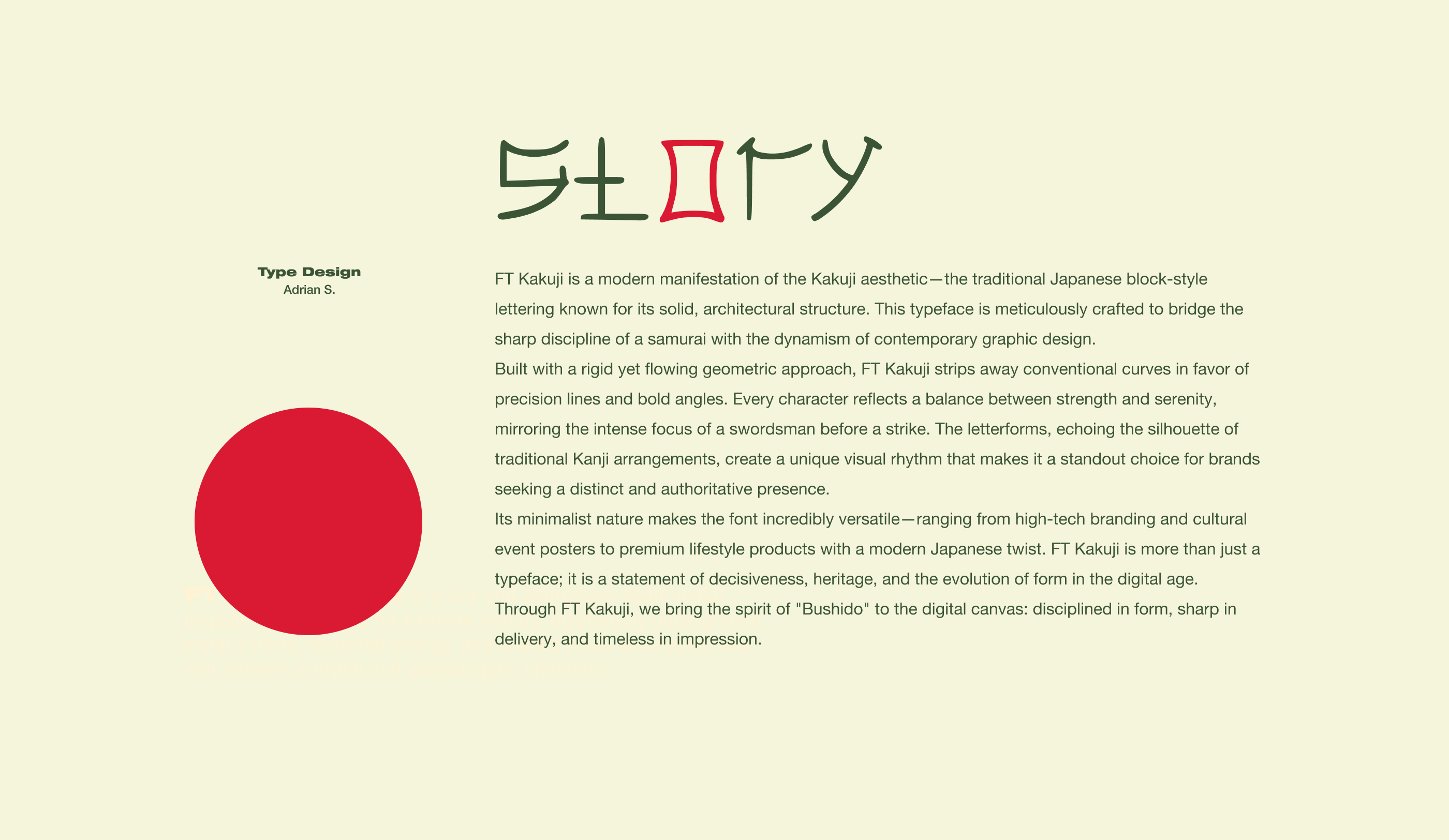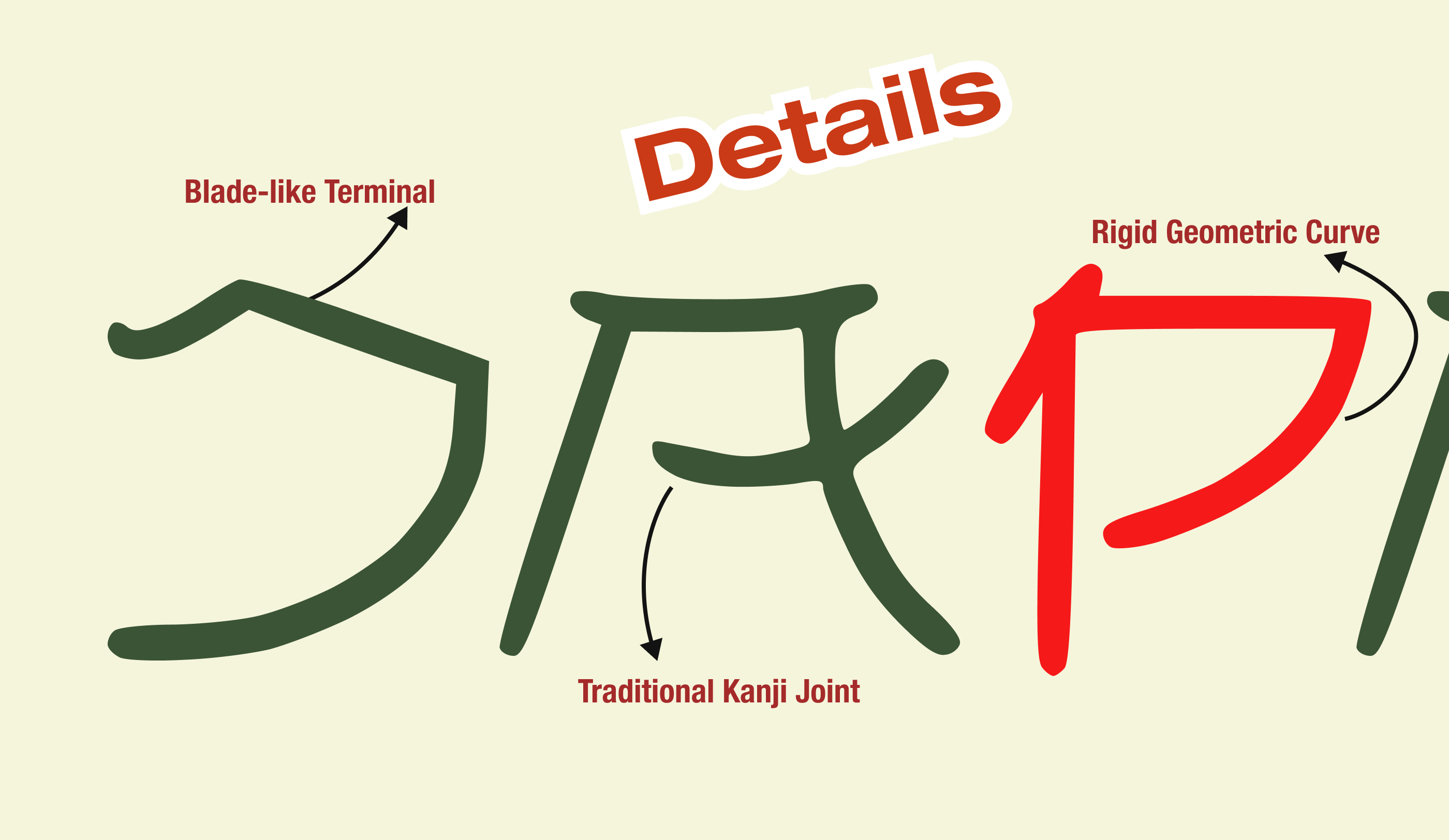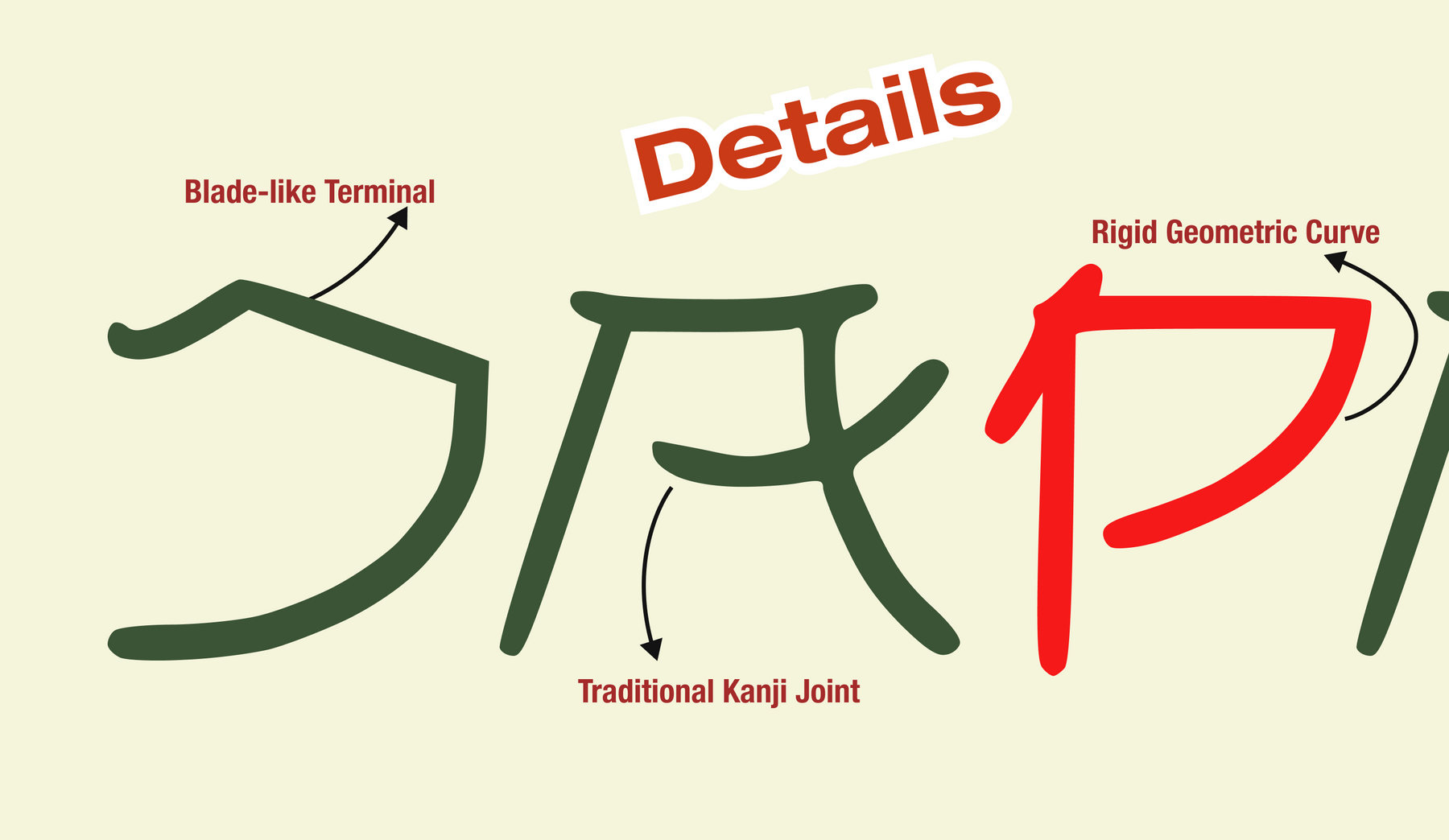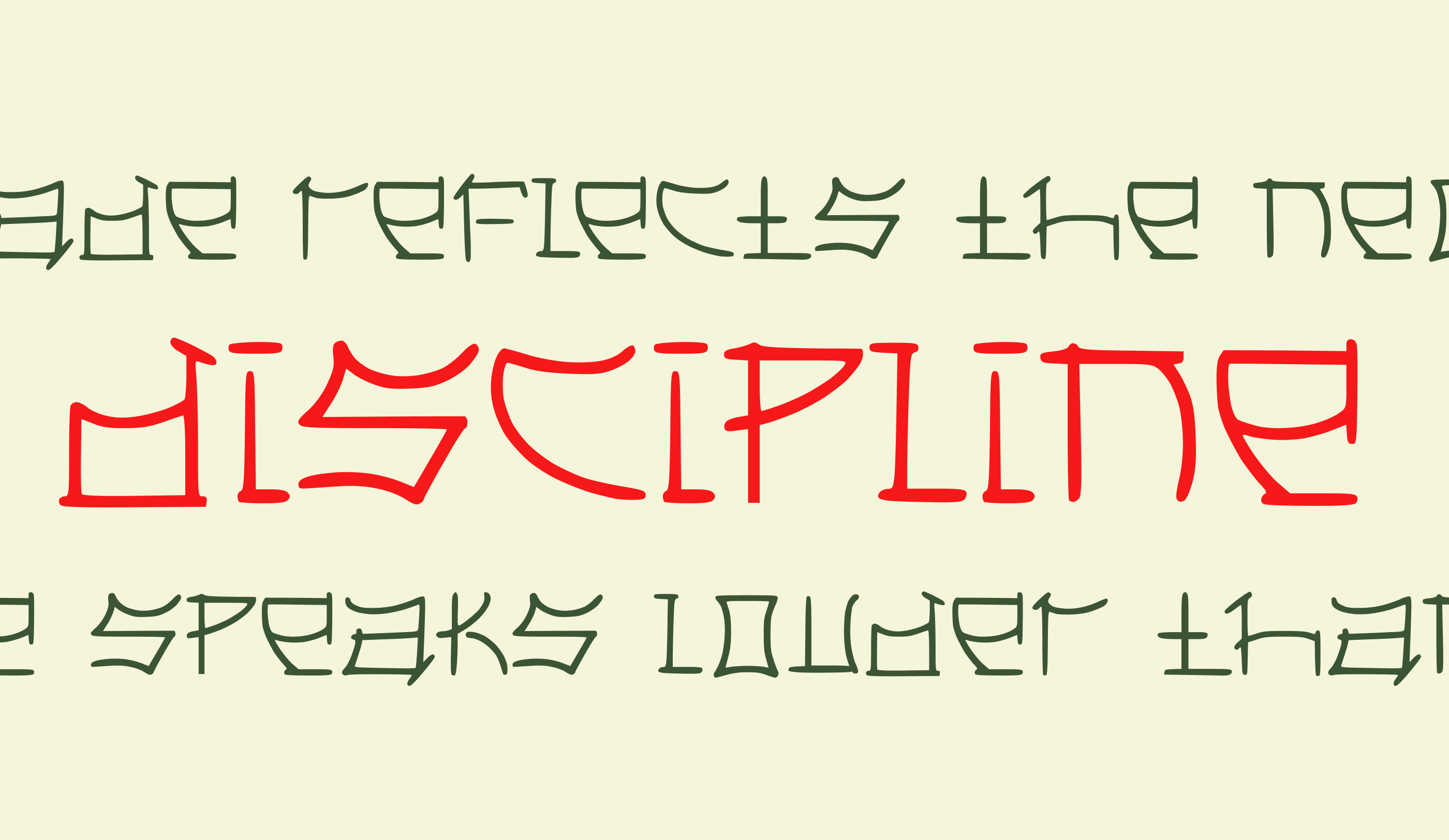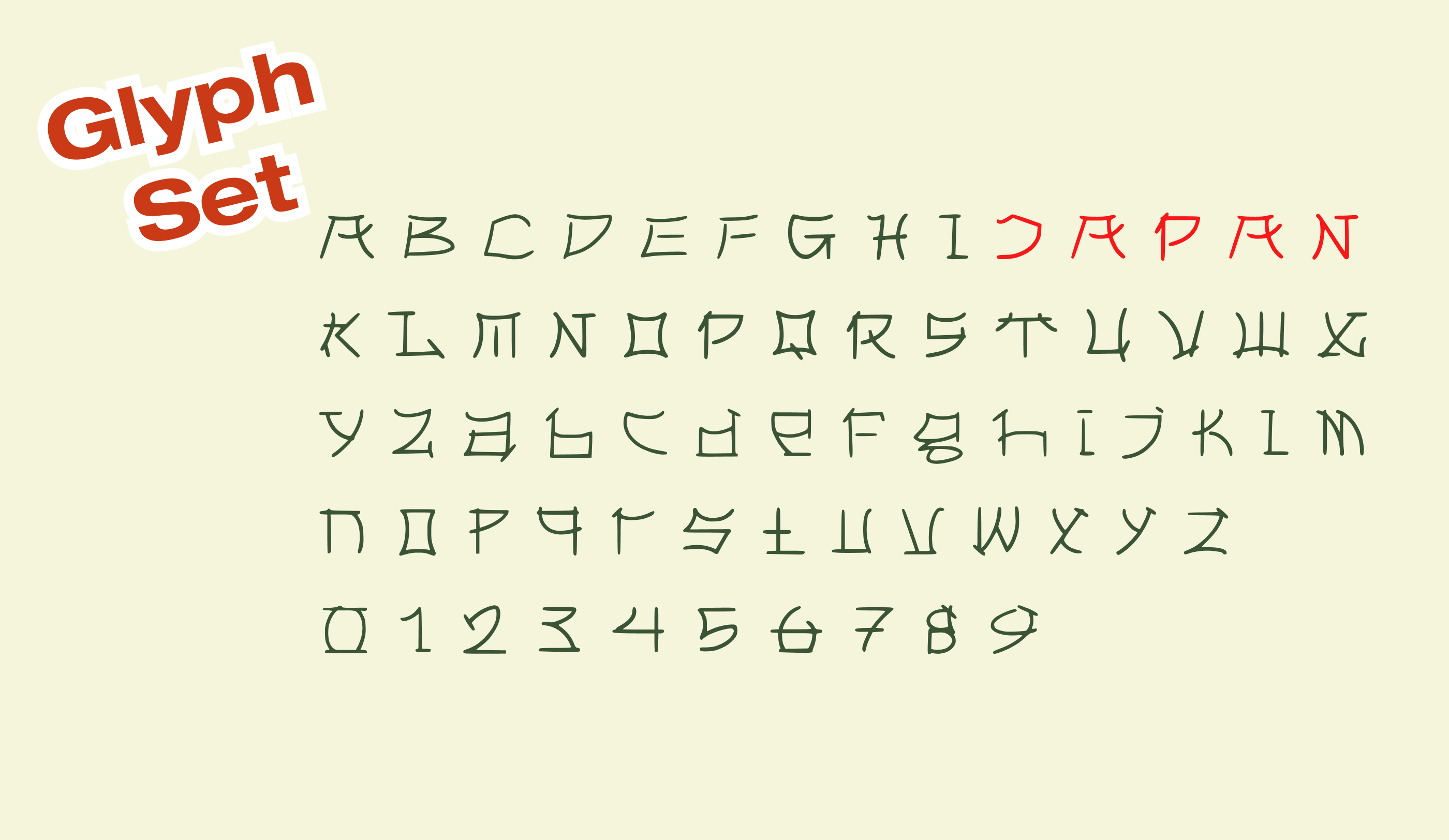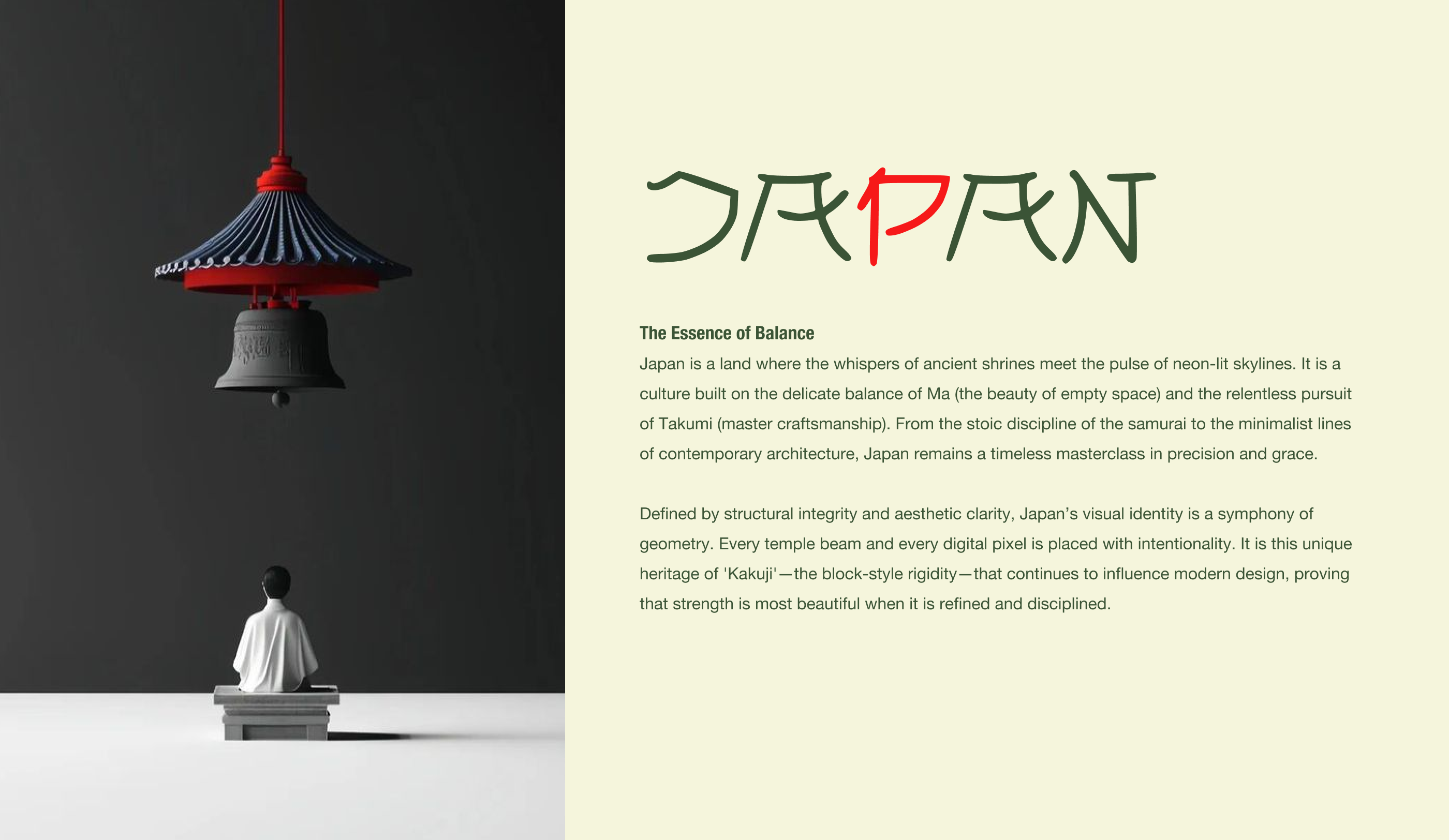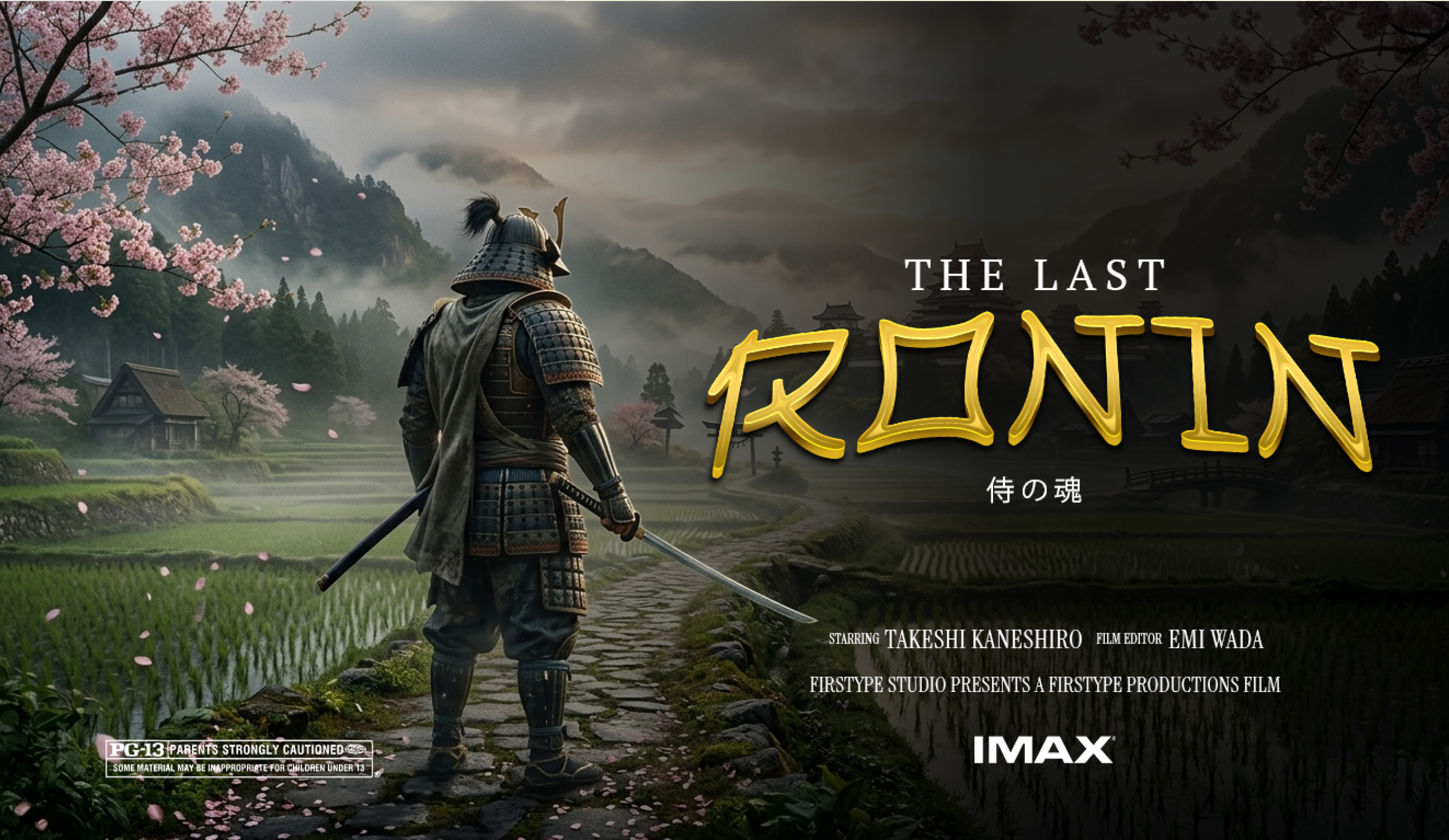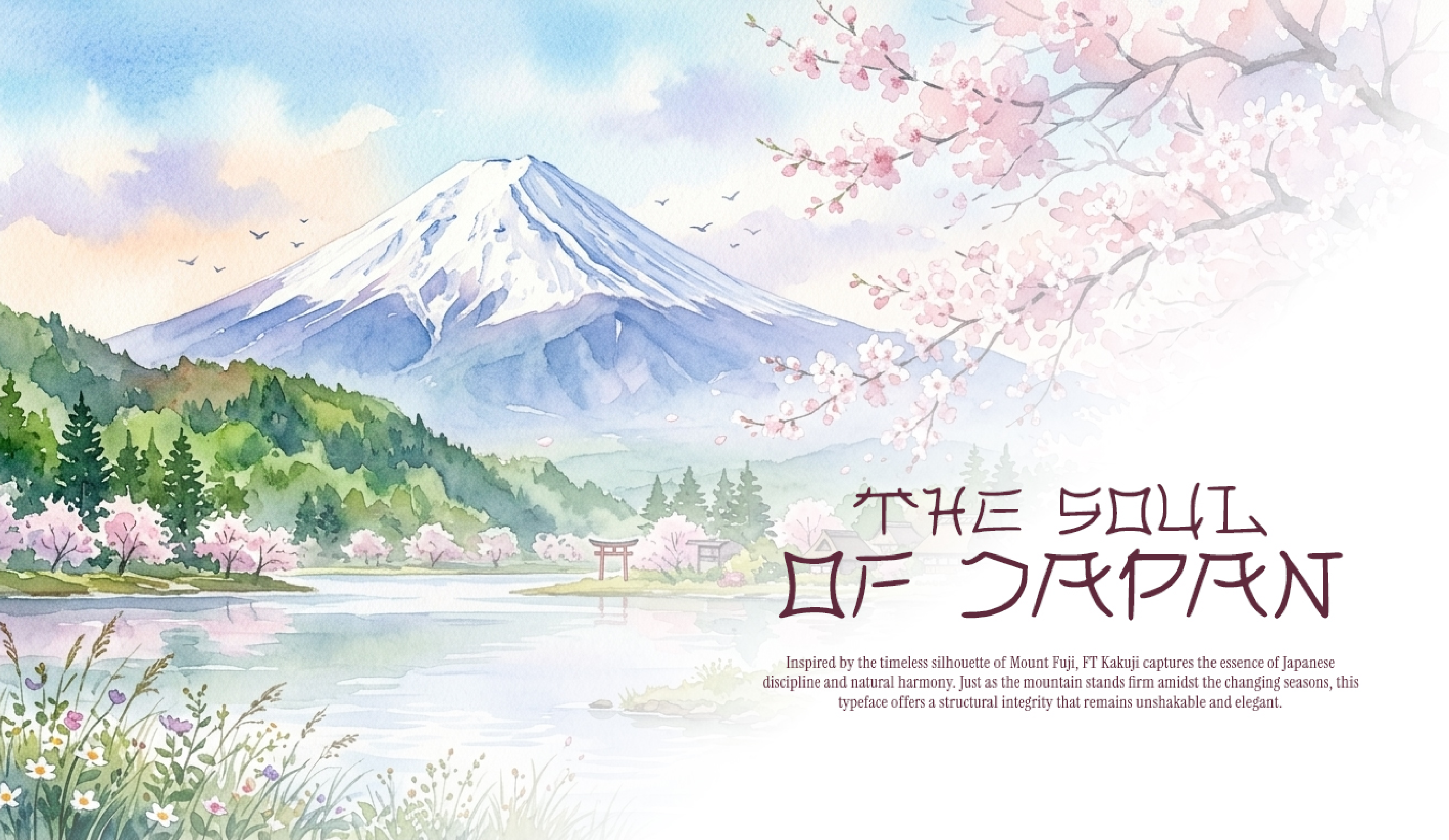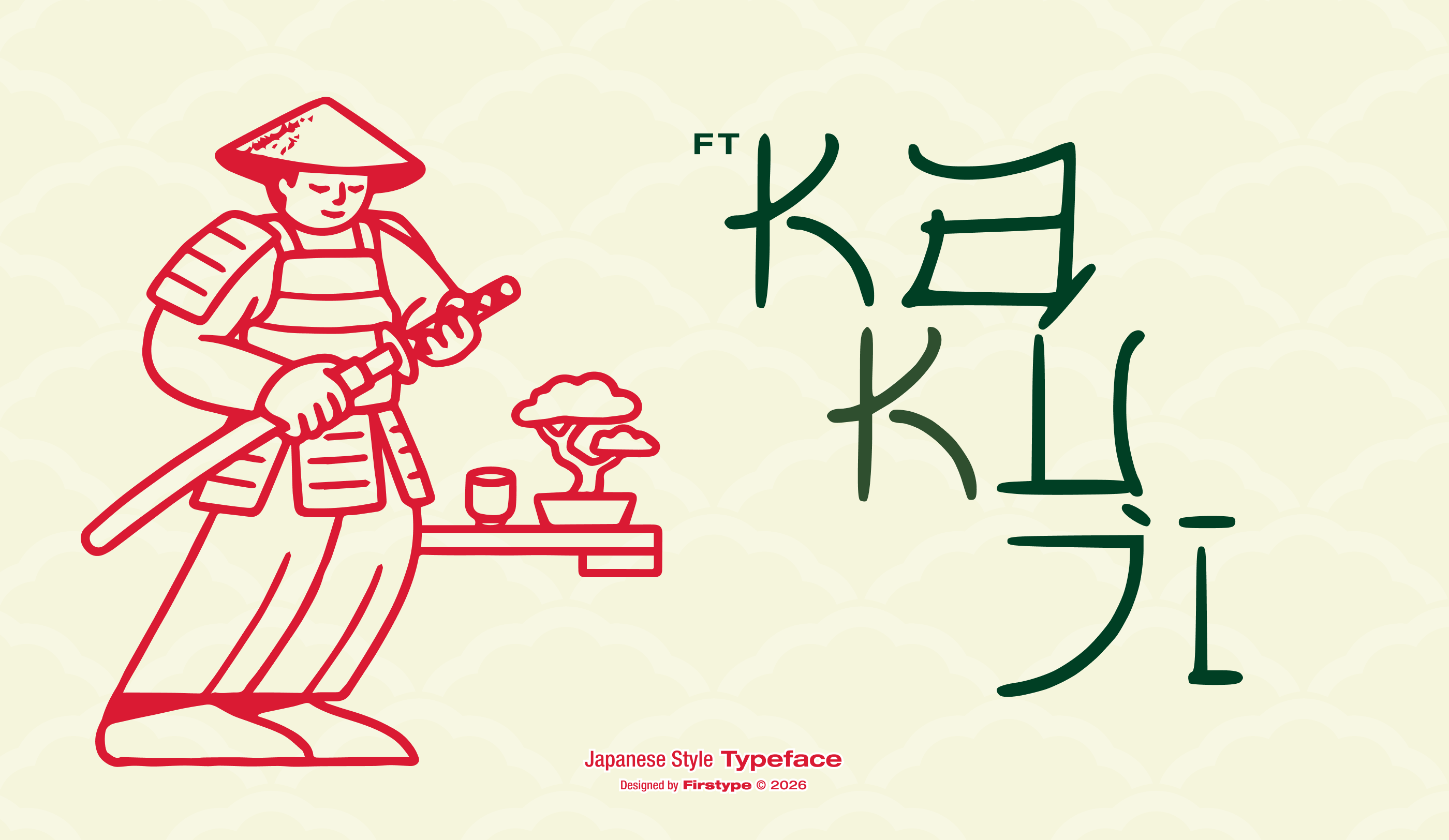
FT Kakuji - Modern Japanese Style Display Typeface
The Geometry of Honor: FT Kakuji by Firstype Studio
Rooted in tradition and refined through modern precision, FT Kakuji is a bold and structural display typeface built for high-impact visual storytelling. Designed by Firstype Studio in 2026, this font is a tribute to the legendary Kakuji block-style lettering, reimagined for the digital era.
Inspired by the sharp discipline of the samurai, architectural rigidity, and neo-Japanese aesthetics, FT Kakuji delivers a commanding and authoritative character to any design. Whether you are working on a high-tech branding project or premium cultural assets, this typeface cuts through the noise with its katana-like terminals, geometric construction, and stoic undertones.
Perfect for High-Impact Visuals:
Branding & Identity: High-tech logos, luxury automotive branding, and modern corporate identities.
Apparel & Lifestyle: Minimalist Japanese streetwear, "Bushido" inspired t-shirt prints, and premium product labels.
Cultural & Media: Editorial headlines for design magazines, documentary titles, and cultural event posters.
Gaming & Entertainment: Cyberpunk-themed layouts, e-sports graphics, and futuristic "Neo-Tokyo" UI designs.
Vibe: Disciplined, Structural, Minimalist, Authoritative.
Characters: Uppercase, Numbers, and Core Punctuations.